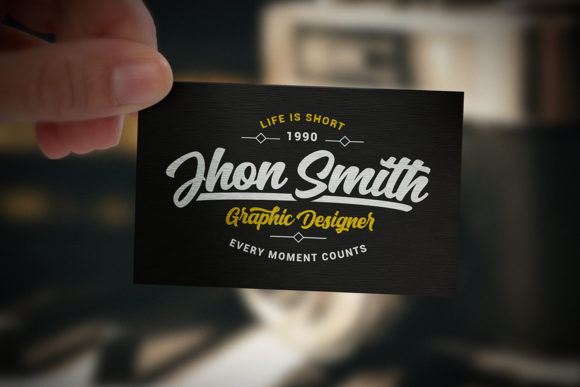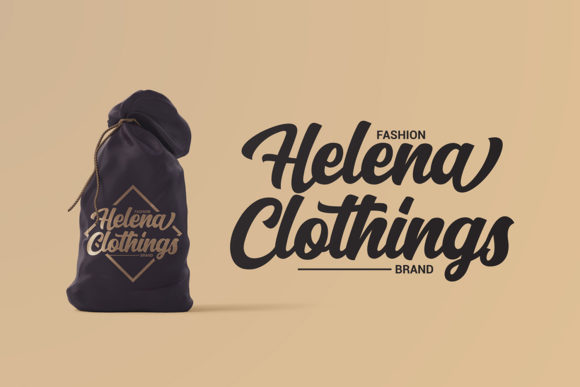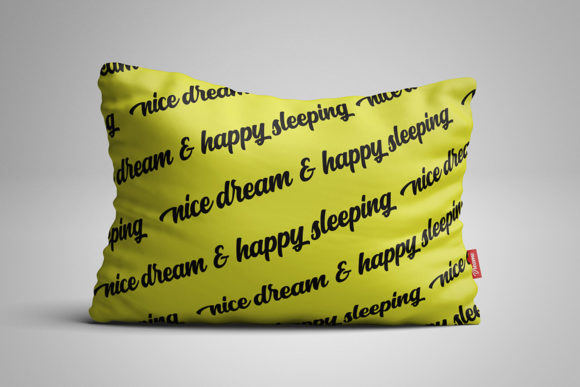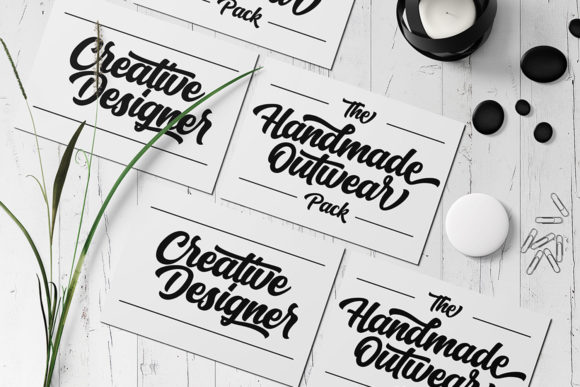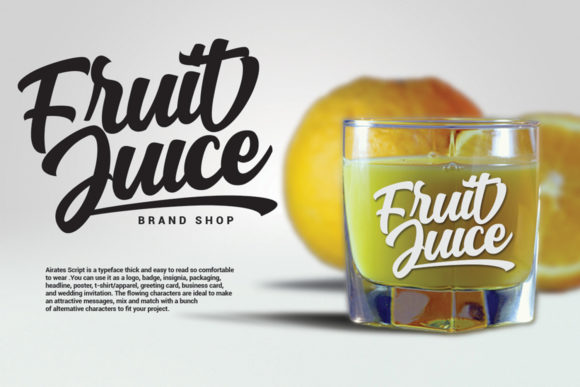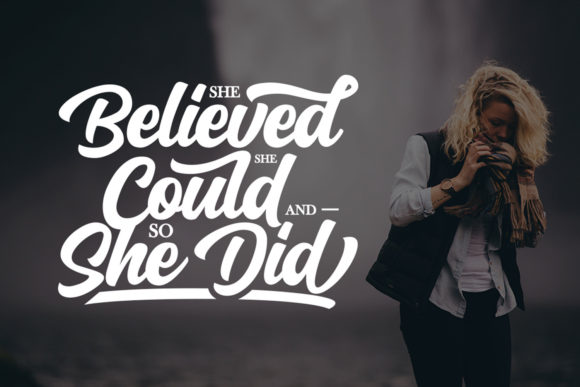
Introducing Airates Font: Elevate Your Designs with a Stylish and Bold Handwritten Touch
In the world of typography, a good font can make all the difference in elevating your designs from ordinary to extraordinary. For designers and crafters looking to add a touch of style and sophistication to their projects, Airates Font is an excellent choice. This gorgeous and bold handwritten font is crafted to give your headlines and logotype projects a confident and dynamic look that’s sure to turn heads.
The Characteristics of Airates Font
Airates Font is a stunning example of a handwritten font that’s both strong and elegant. Its bold and confident strokes exude a sense of dynamism, making it perfect for designs that require a touch of personality. The font’s unique characteristics include:
• Bold and Confident: Airates Font is designed to make a statement. Its bold strokes and confident lettering make it perfect for headlines, titles, and logotypes that require a strong presence.
• Nostalgic Character: The font’s handwritten style gives it a nostalgic feel that’s reminiscent of classic designs from the past. This makes it an excellent choice for projects that require a touch of vintage charm.
• Dynamic and Expressive: Airates Font is incredibly expressive, with varying letterforms and stroke widths that give it a sense of movement and energy.
Uses of Airates Font
Airates Font is an incredibly versatile font that can be used in a wide range of design projects. Some of the most popular uses of this font include:
• Headlines and Titles: Airates Font is perfect for creating bold and eye-catching headlines and titles that require a strong presence.
• Logotypes and Branding: The font’s unique style makes it an excellent choice for logotypes and branding projects that require a touch of personality.
• Posters and Flyers: Airates Font is well-suited for posters and flyers that require a bold and attention-grabbing headline.
• Packaging and Product Design: The font’s nostalgic character makes it an excellent choice for packaging and product design projects that require a touch of vintage charm.
Why Choose Airates Font?
With so many fonts available, why choose Airates Font for your design projects? Here are just a few reasons:
• Unique Style: Airates Font has a unique and distinctive style that’s sure to set your designs apart from the crowd.
• High-Quality Design: The font is crafted with attention to detail, ensuring a high-quality design that’s both elegant and sophisticated.
• Easy to Read: Despite its bold style, Airates Font is incredibly easy to read, making it perfect for designs that require a strong headline or title.
Tips for Using Airates Font
To get the most out of Airates Font, here are a few tips to keep in mind:
• Use it Boldly: Airates Font is designed to make a statement, so don’t be afraid to use it boldly in your designs.
• Experiment with Colors: The font’s bold style looks great in a wide range of colors, so don’t be afraid to experiment and find the perfect hue for your design.
• Pair it with Other Fonts: Airates Font pairs well with a wide range of other fonts, so feel free to experiment and find the perfect combination for your design.
In conclusion, Airates Font is an excellent choice for designers and crafters looking to add a touch of style and sophistication to their projects. Its bold and confident style, nostalgic character, and dynamic expressiveness make it perfect for a wide range of design projects. Whether you’re creating headlines, logotypes, or packaging, Airates Font is sure to elevate your designs to the next level.